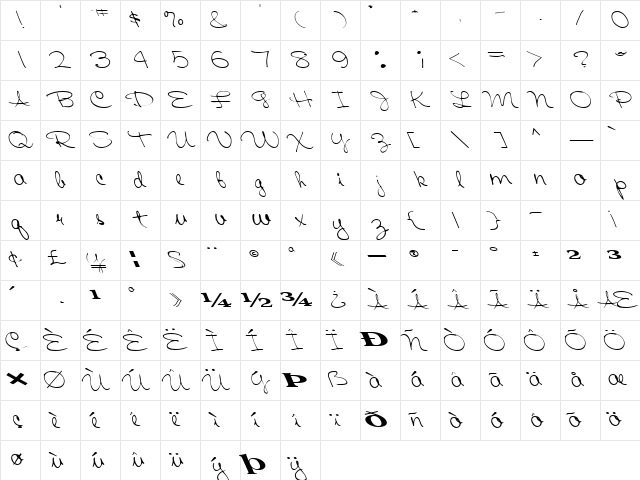
FairTrade53 Regular Free Font
FairTrade53 Regular
FairTrade53 Family
Design Context for FairTrade53
FairTrade53 is a composed and adaptable typeface that performs quietly and consistently across a wide range of design contexts.